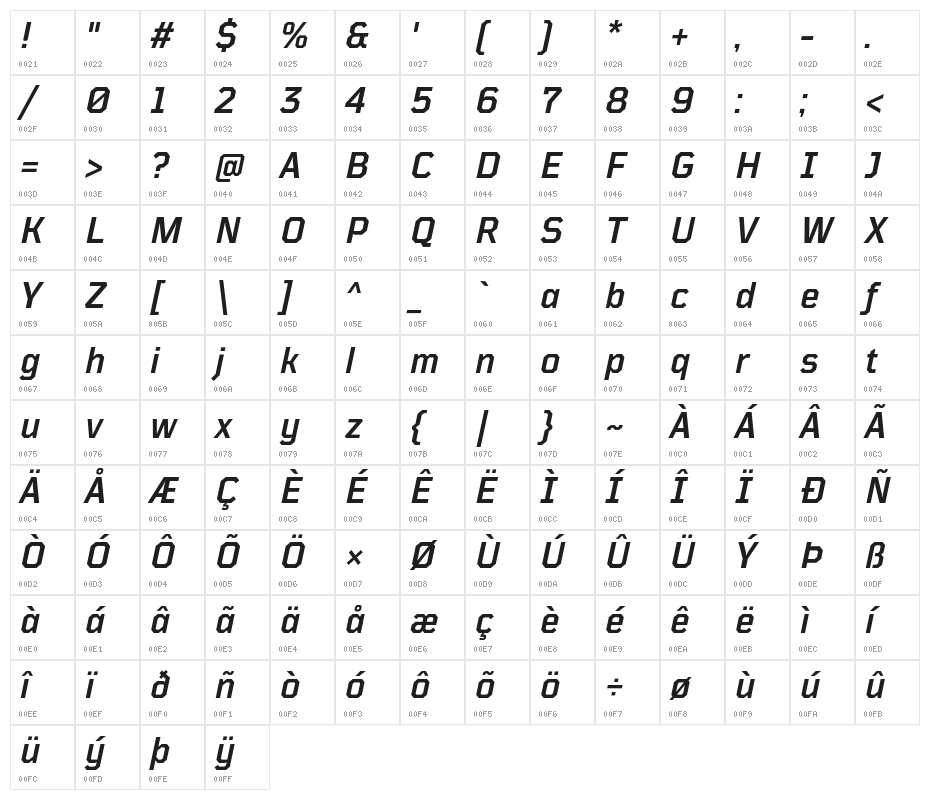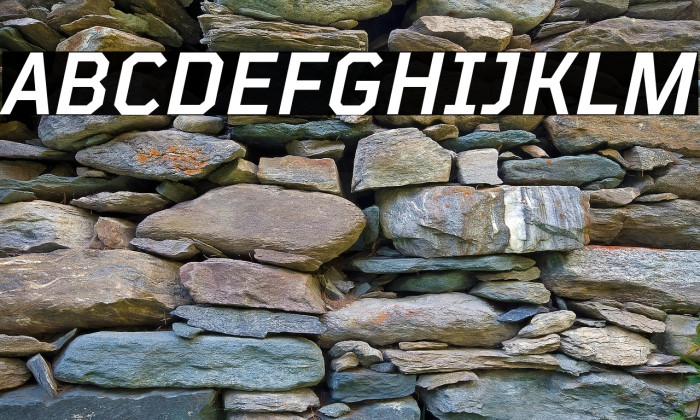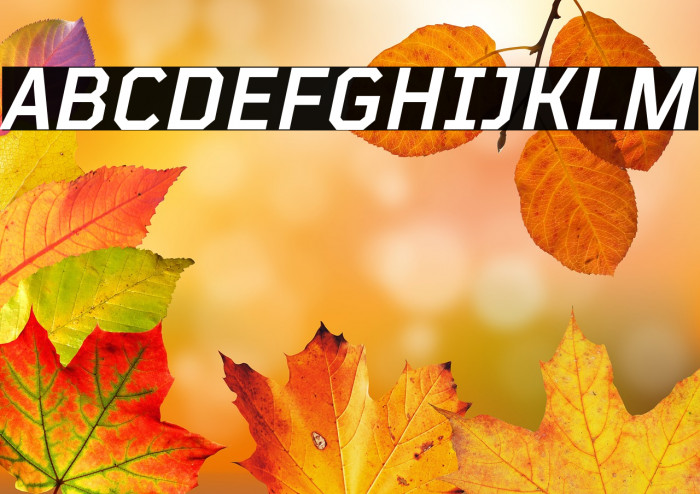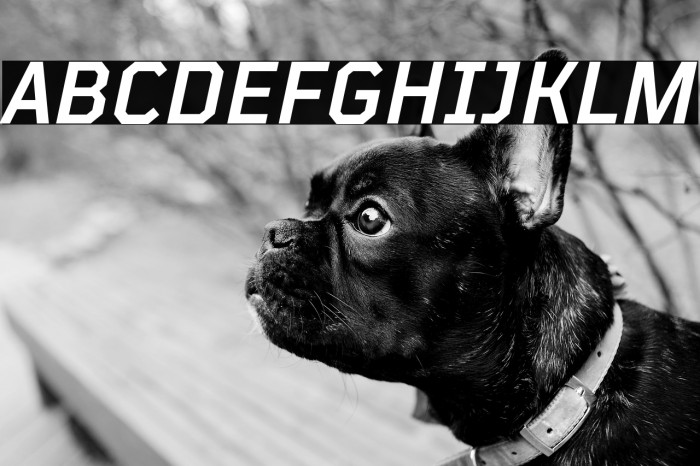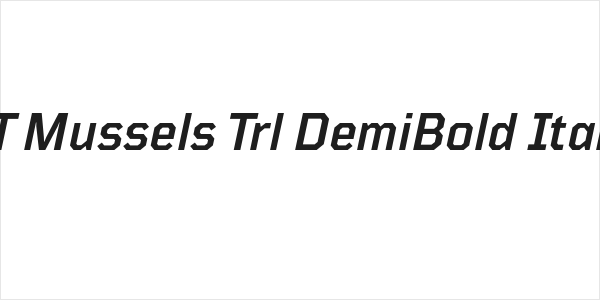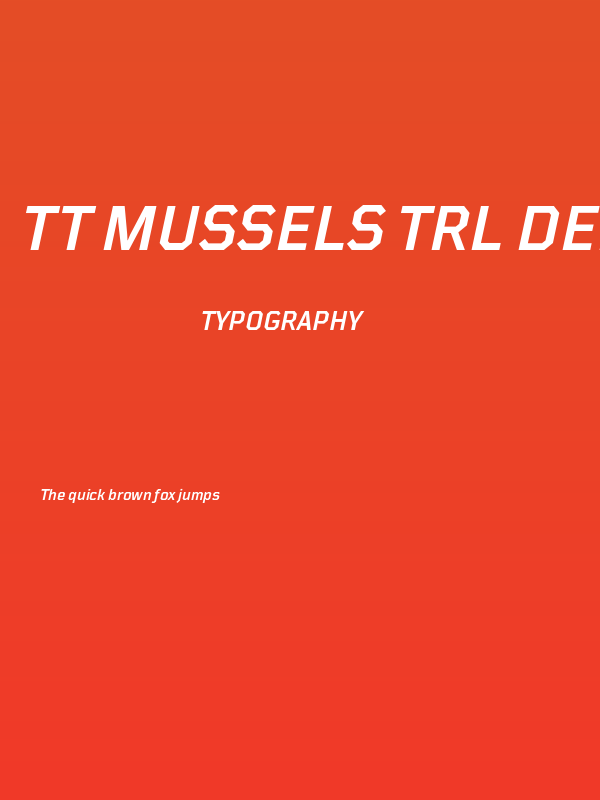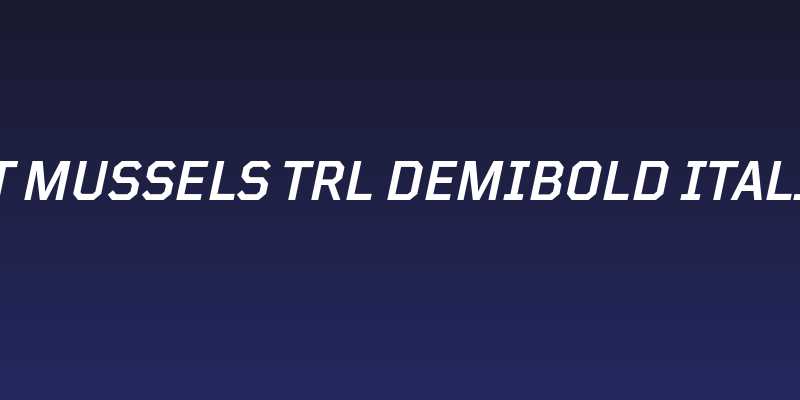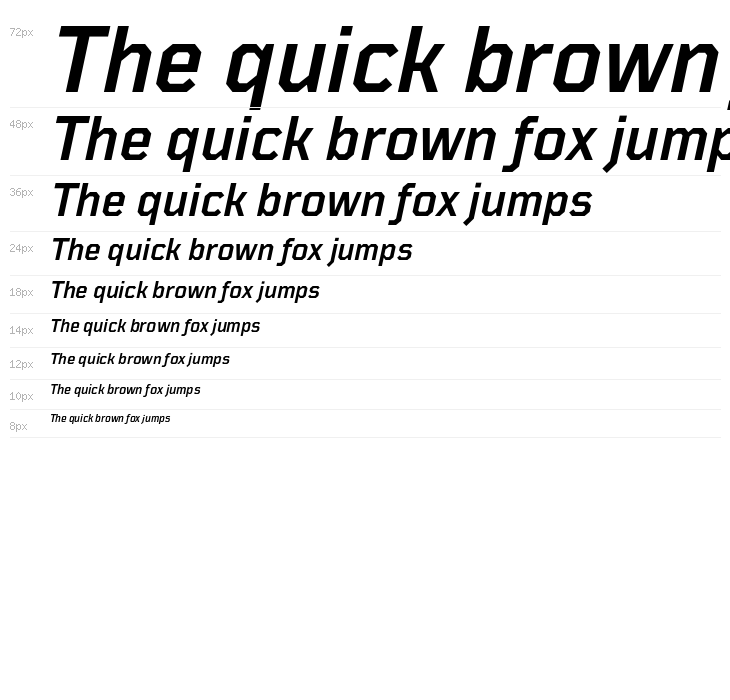
TT Mussels Trl DemiBold Italic Font
TT Mussels Trl DemiBold Italic Description
This font exhibits a modern and dynamic style with a strong geometric influence. The characters are slightly slanted, giving an italicized appearance that adds a sense of motion and urgency. The strokes are consistent and bold, providing a clear and impactful presence. The angular design of the letters, particularly noticeable in characters like 'A', 'M', and 'N', contributes to a futuristic aesthetic. The numbers and special characters maintain the same bold and angular style, ensuring uniformity across all glyphs. This font is well-suited for projects that require a modern and assertive look.
| Proposed Projects | Ideal for branding, advertising, sports team logos, and modern web design. |